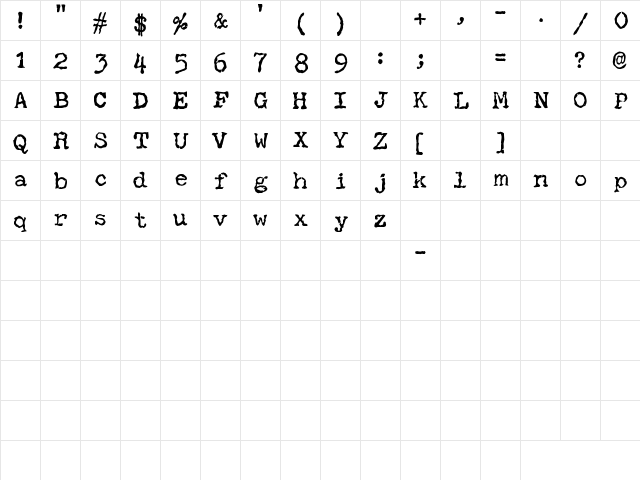
SBC Distressed Typewriter Regular
Design Context for SBC Distressed Typewriter Typeface
SBC Distressed Typewriter embraces imperfection — its rough, textured character adds raw authenticity to designs that want to feel lived-in and unconventional.
Suited to punk-influenced zines, underground music branding, streetwear, and raw, anti-corporate design.
Pro Tip: Pair SBC Distressed Typewriter with intentionally raw or lo-fi design elements. Fighting against it with overly polished surroundings will undermine its personality.